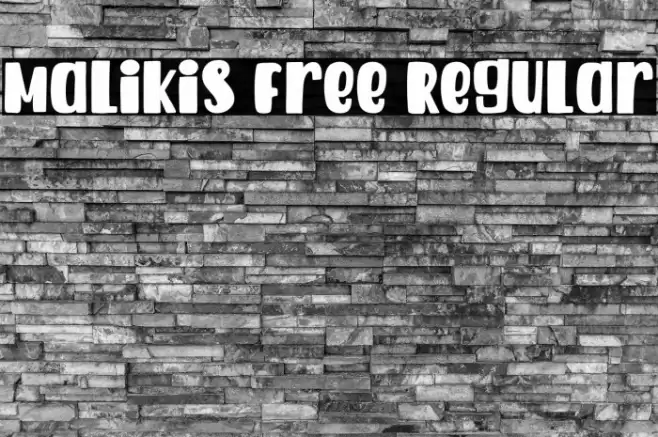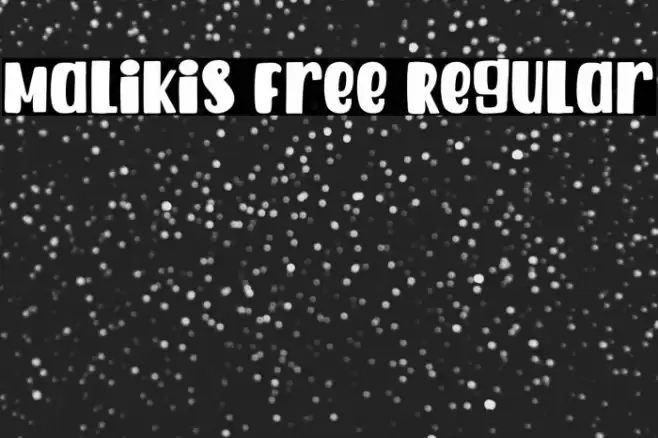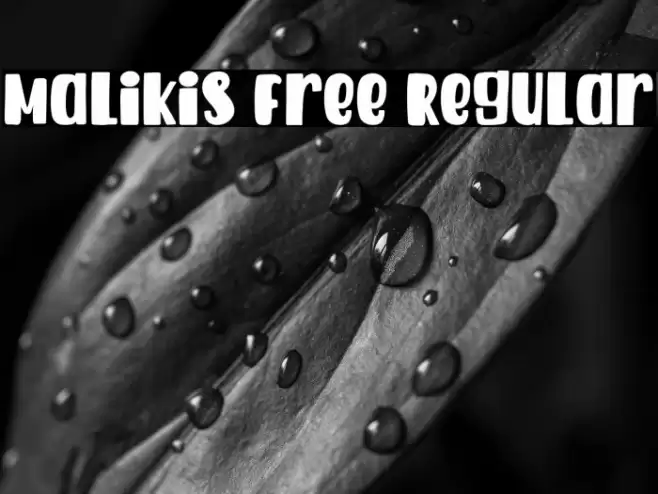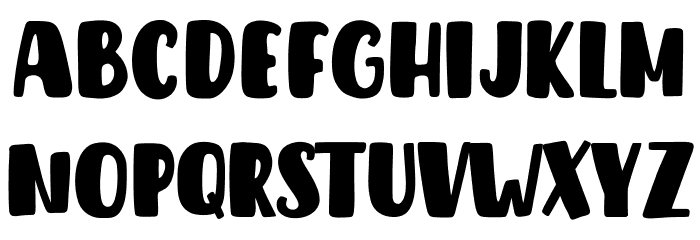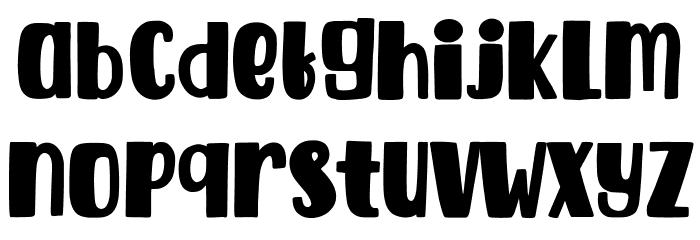
Malikis Free Regular Font
Malikis Free Regular Description
This font features a bold and playful style with thick, rounded strokes that give it a friendly and approachable appearance. The characters exhibit a whimsical and slightly irregular form, adding to its charm and uniqueness. The uppercase and lowercase letters maintain a consistent weight, creating a cohesive look across the alphabet. The numbers and special characters are designed to match the playful aesthetic, making them suitable for creative and informal projects. The overall design is both eye-catching and versatile, ideal for capturing attention in various contexts.
A bold, playful font with thick, rounded strokes and a whimsical style from Cartoon fonts.
- Proposed Projects: Ideal for children's books, playful branding, posters, and creative social media graphics.
- Overall Style: Playful, Whimsical